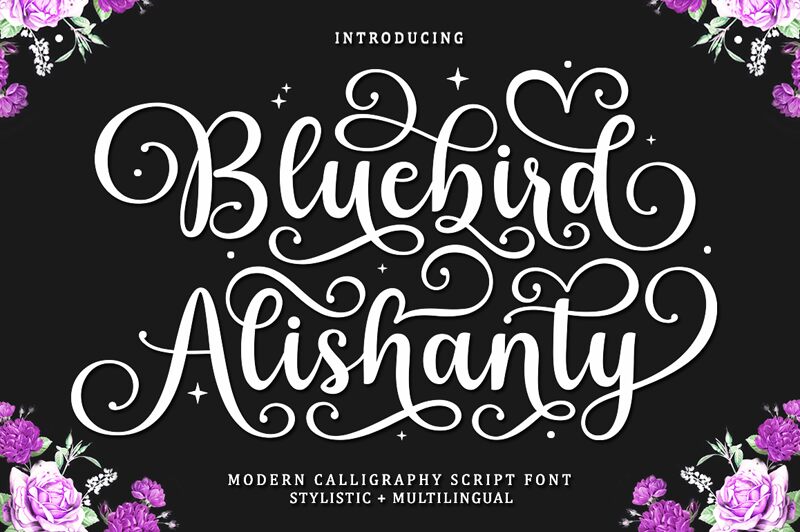
Bluebird Alishanty font is a wonderful free calligraphy font created by Muhammad Nazar. This elegant, flowing font is packed with expressive letters and can make any text you use it on seem beautiful. With an ornate and decorative style, it’s easy to see how Bluebird Alishanty carries similarities between its letters.
Features: Early & Late Swash & Ligatures